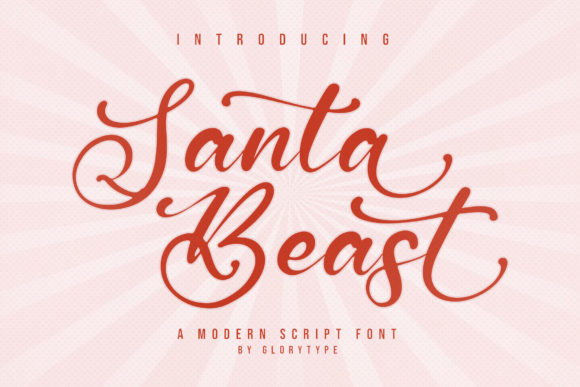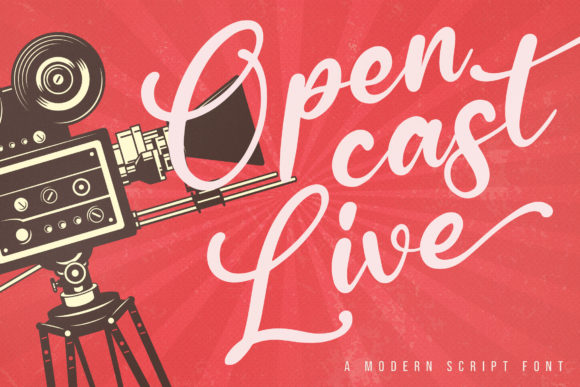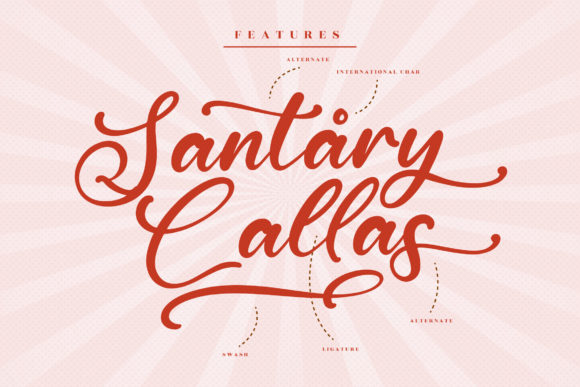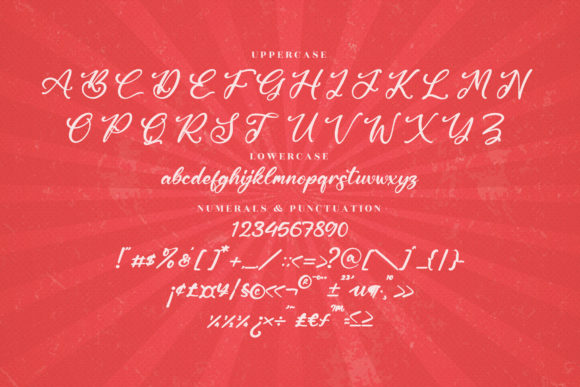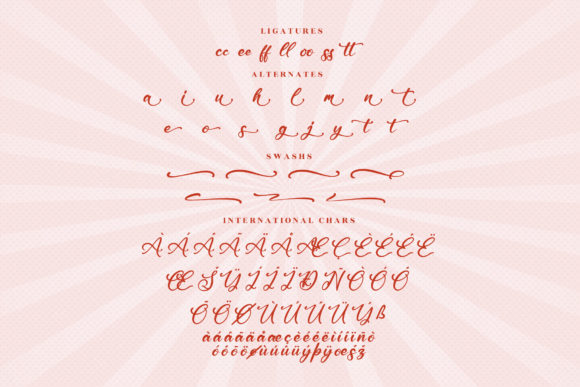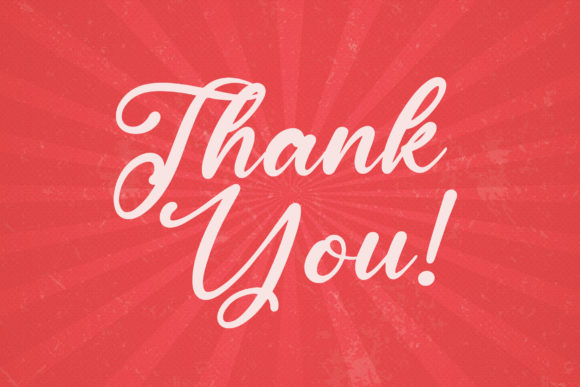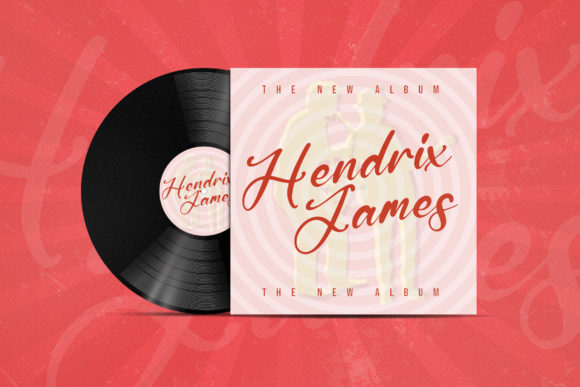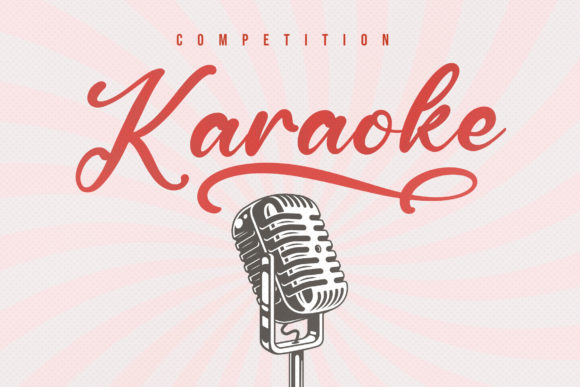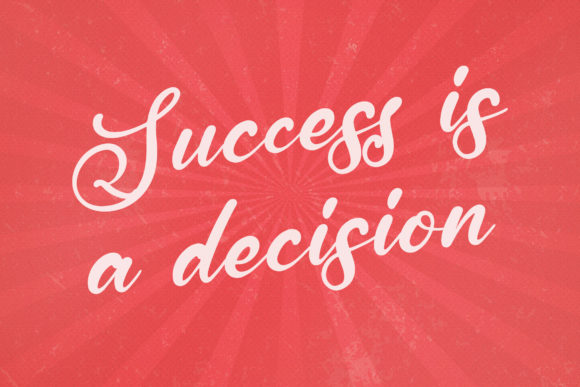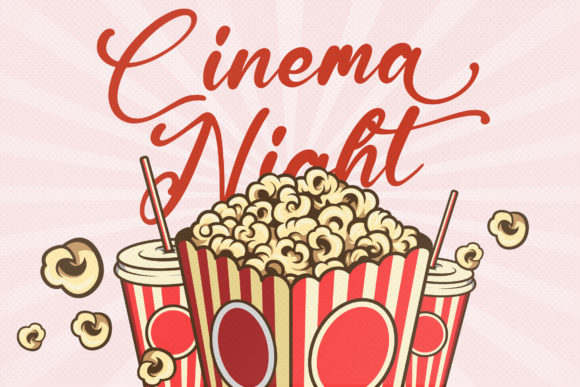
Santa Beast Font
About Santa Beast Font
Santa Beast is a beautiful and flexible handwritten font. It is suitable for various design needs such as business cards, wedding invitations, banner ads and various other creations.